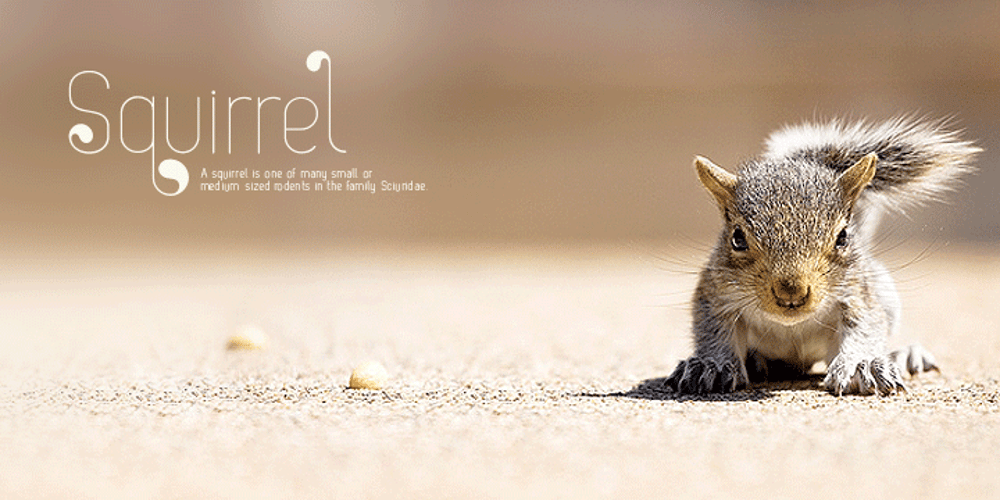
Zag Font Family was designed by Svetoslav Simov and published by Fontfabric. Zag contains 7 styles and family package options. Zag is a custom sans font which is applicable for any type of graphic design – web, print, motion graphics etc and perfect for t-shirts and other items.